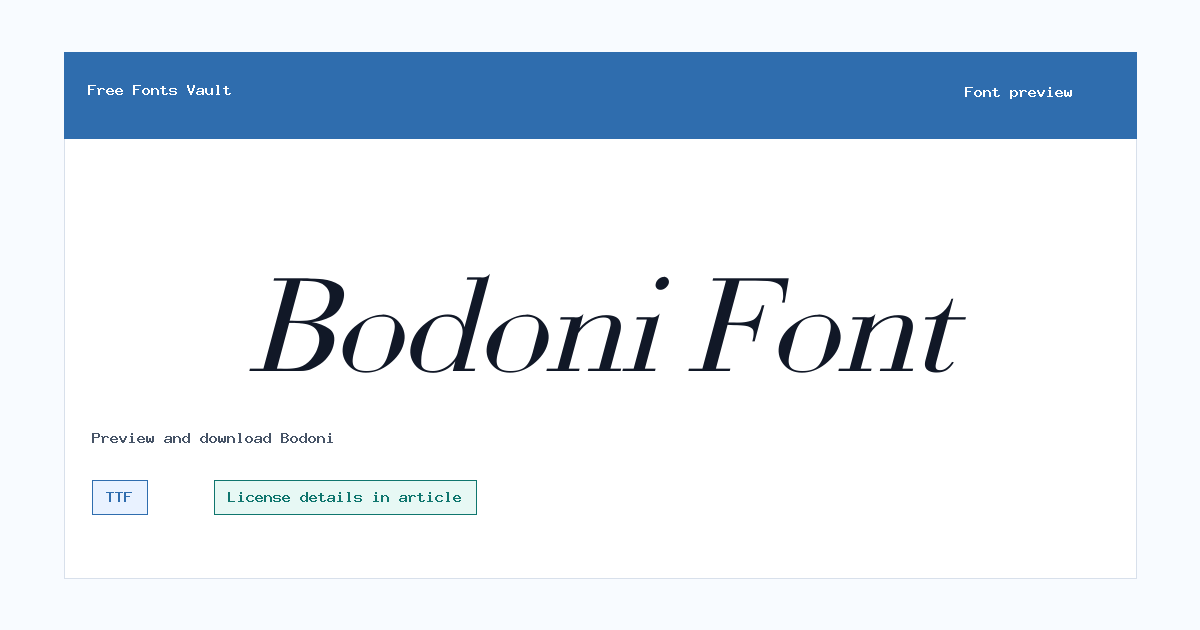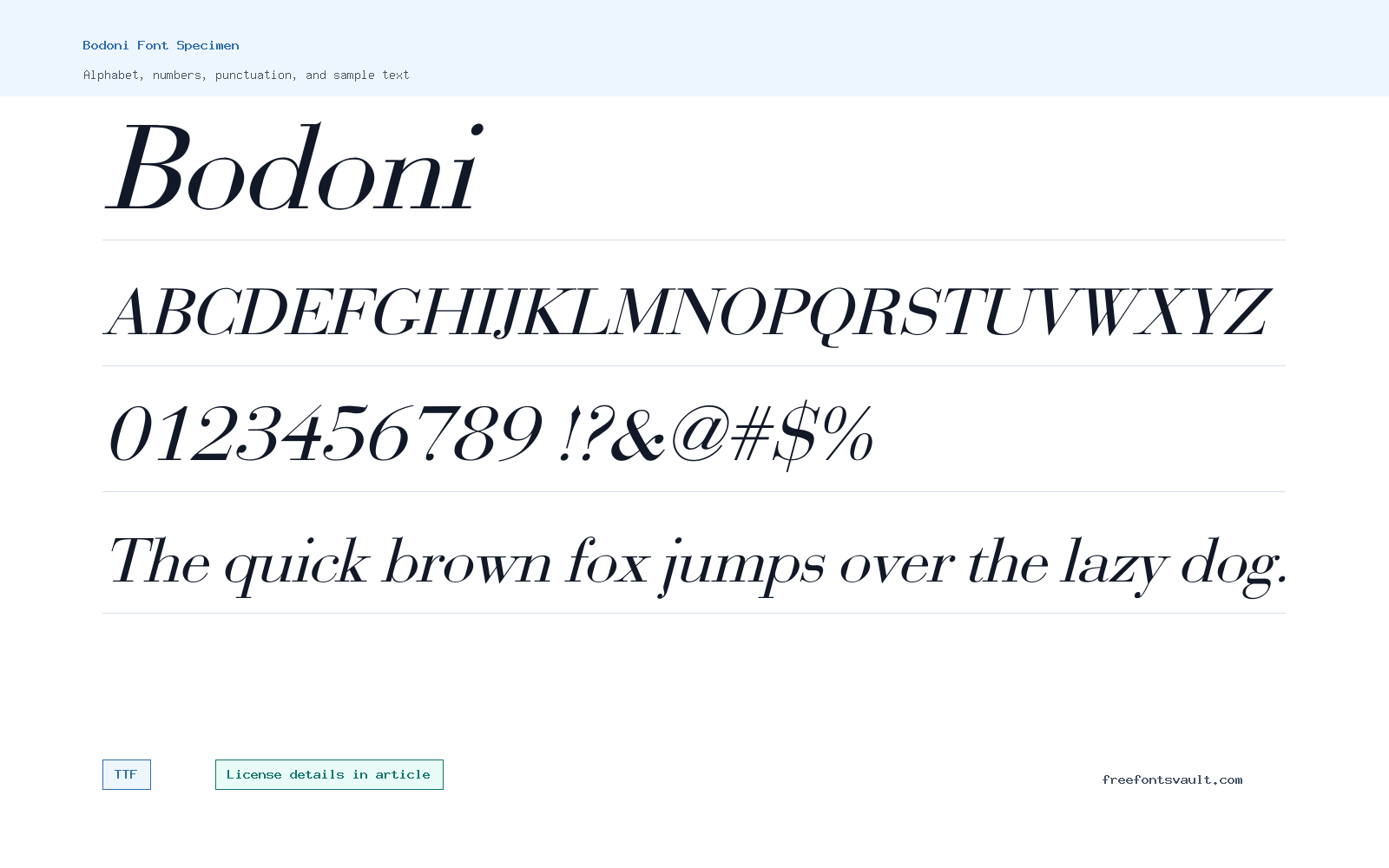
Bodoni
Bodoni is a high-contrast italic serif style for polished display typography. Use it when a short line needs elegance, sharp detail, and a formal editorial tone.
The downloadable file for this entry is BodoniItalic.ttf, listed as a regular 400-weight italic TTF. Bodoni-style type is known for strong contrast between thick and thin strokes, vertical stress, and a crisp serif finish. In practice, that means it can look refined and dramatic in a headline, but it needs enough size and contrast to stay readable.
Use Bodoni for short text first: magazine-style titles, invitations, names, quotes, luxury product mockups, menu headings, and editorial graphics. The italic cut adds movement and emphasis, so it often feels more expressive than a roman style. It should not be your first choice for long paragraphs, small captions, or low-contrast backgrounds.
When designing with Bodoni, give the letters room. Thin strokes can break up on small screens or busy images, while tight spacing can make the italic rhythm feel crowded. Pair it with a clean sans serif or a calm text serif for supporting information, then let Bodoni handle the main visual line.
- Italic serif style with a regular 400 weight
- High-contrast display look suited to refined headlines
- Best at medium to large sizes where thin strokes remain visible
- Useful as an elegant accent rather than a full body-copy system
- Works well with simple companion fonts for balanced layouts
- Editorial headings, magazine covers, and title treatments
- Invitations, event graphics, menus, and formal stationery
- Short quotes, initials, monograms, and luxury-style mockups
- Logo experiments where a sharp italic serif mood is required
- Testing high-contrast serif typography before final production
Preview Bodoni with the exact words you plan to use, then test it against both light and dark backgrounds. Watch the thin strokes, commas, apostrophes, and small numbers. If the preview loses clarity, increase size, reduce visual clutter, or switch supporting text to a sturdier companion font.
Is this Bodoni style italic?
Yes. The style data lists it as italic with a regular 400 weight.
What is Bodoni best used for?
It works best for short, elegant display text such as headings, invitations, quotes, names, and editorial title graphics.
Why should I avoid small sizes?
High-contrast serif fonts often have very thin strokes. At small sizes, those details can fade or look uneven, especially on busy backgrounds.